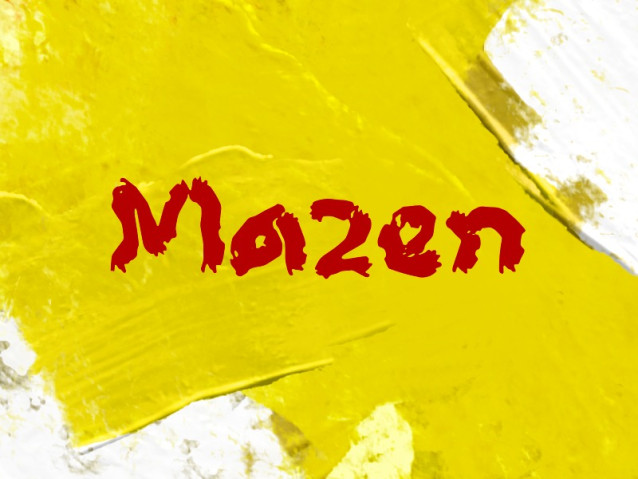
Mazen Font
Mazen Font is a simple and modern display font suitable for quotes, logos, headings, titles, and many more. Use it on any of your creative projects, and your designs will become outstanding!